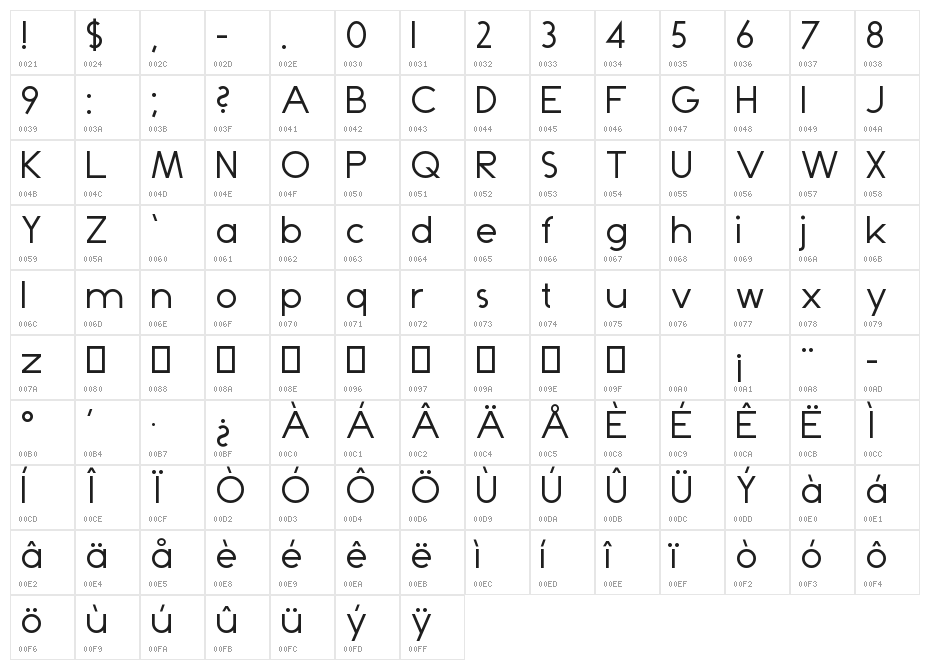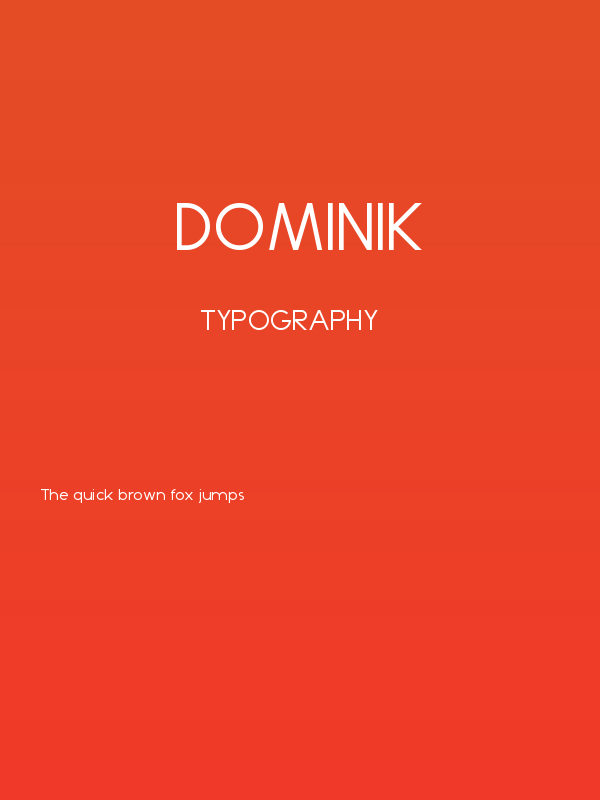
Dominik Font
Dominik Description
This font features a clean and modern sans-serif style with a geometric structure. The characters are evenly spaced, providing a balanced and harmonious appearance. The uppercase letters are bold and assertive, while the lowercase letters maintain a consistent and smooth flow. The numerals are clear and legible, making them suitable for various applications. Special characters are included, offering versatility for different design needs. The overall aesthetic is minimalist, making it ideal for contemporary projects.
Overall StyleModern
Use CaseHeadlines, Body text, Logos
Proposed ProjectsIdeal for branding, web design, advertising, and editorial layouts where a modern and clean look is desired.